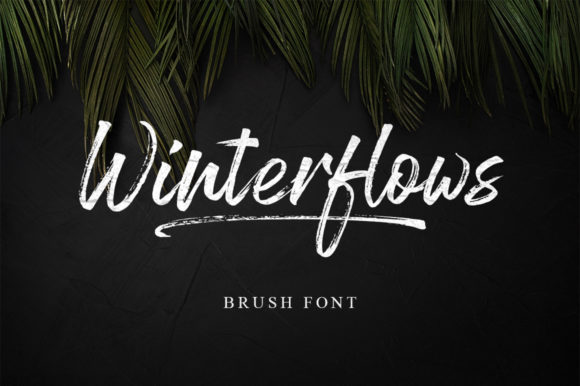
In a world where expression finds its rhythm in the strokes of letters, Winterflows Font emerges as an enchanting script, crafted to capture the essence of cinematic storytelling. Far beyond being just another font, Winterflows becomes a character in your tale, an integral part of the story you tell.
Feel the rush of creative freedom as your fingers dance across the keyboard, guided by the graceful curves of Winterflows. Each glyph is a brushstroke of emotion, shaping words into art and conveying messages with unparalleled elegance. From sweeping love stories to heart-wrenching dramas, Winterflows transforms the ordinary into the extraordinary.
Immerse yourself in the realm of moving pictures, where Winterflows Font dances across the screen, drawing viewers into the narrative with its captivating charm. Its smooth, flowing lines mimic the rhythm of dialogue, adding depth and dimension to every scene. Whether it's the gentle whisper of a confession or the passionate crescendo of a climactic moment, Winterflows captures the emotional nuances with flawless precision.
Beyond the realm of film, Winterflows Font flourishes in a myriad of creative endeavors. Its timeless style adds a touch of sophistication to wedding invitations, breathing life into vows and promises. It lends an air of exclusivity to branding, creating logos that stand out in a sea of sameness. From heartfelt cards to eye-catching posters, Winterflows elevates your designs to new heights, effortlessly communicating elegance and creativity.